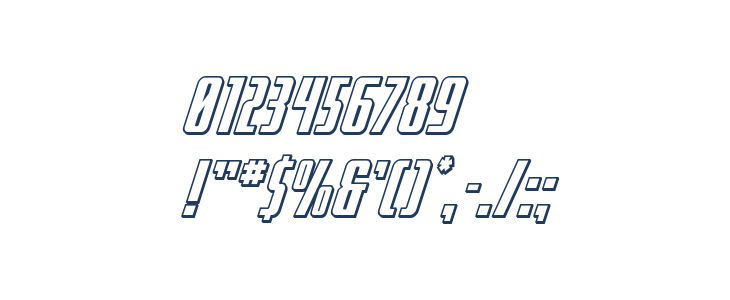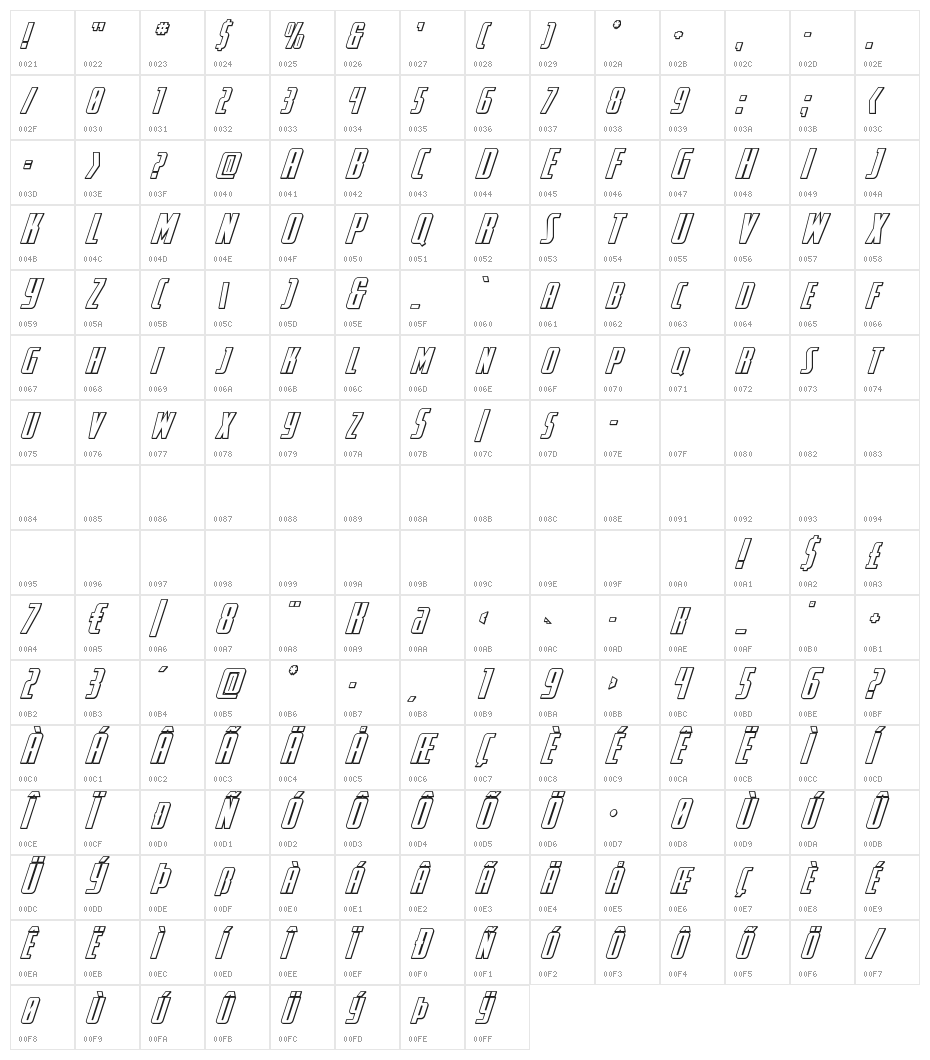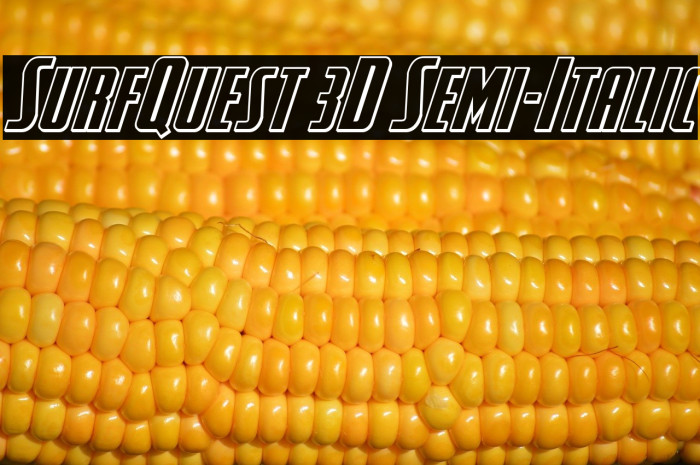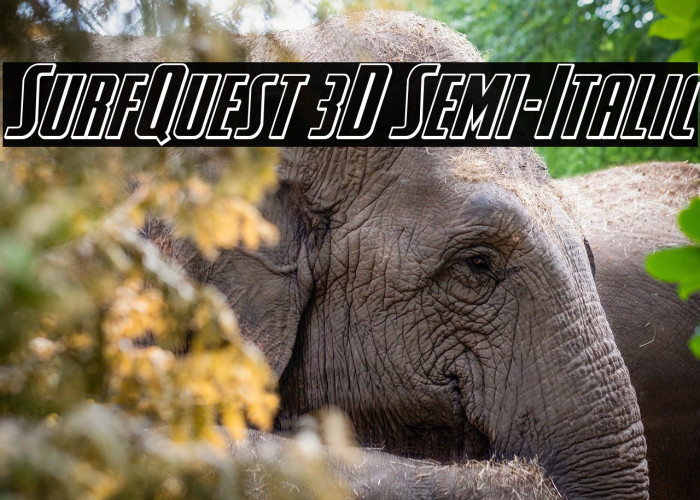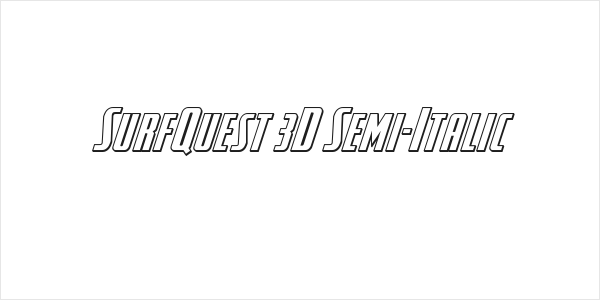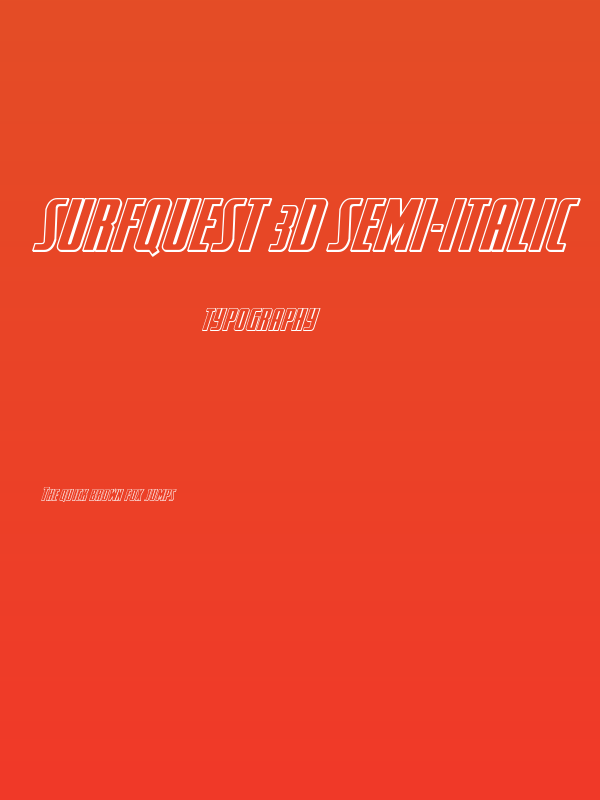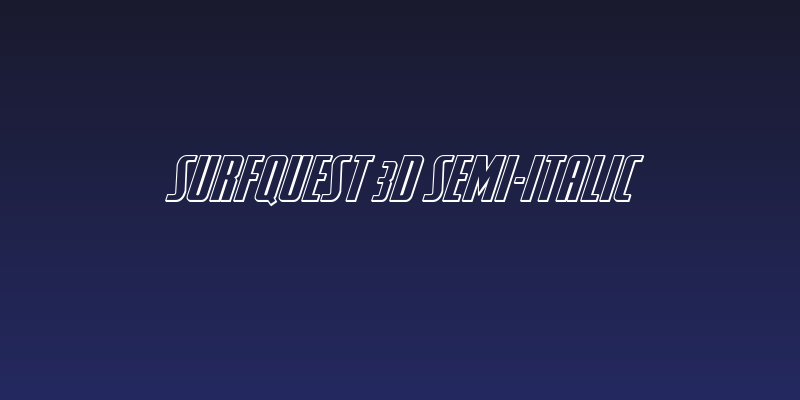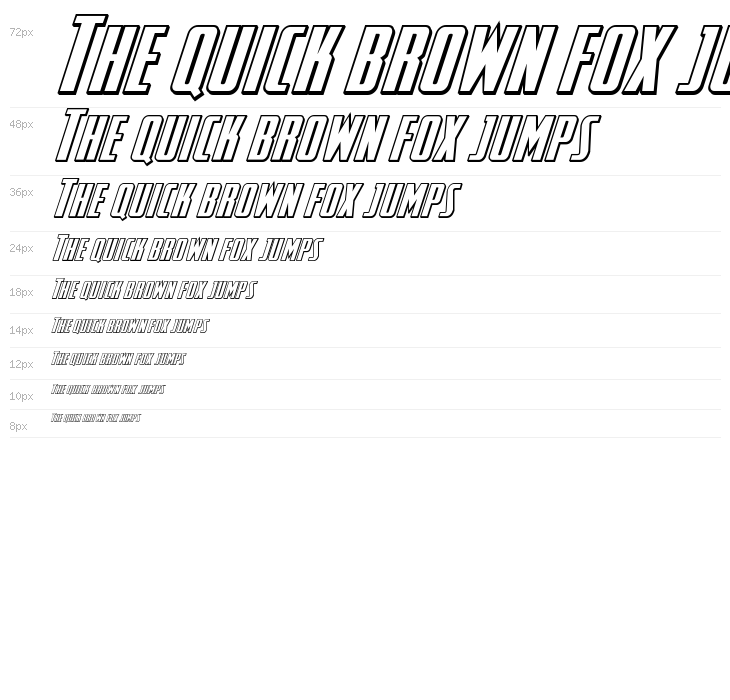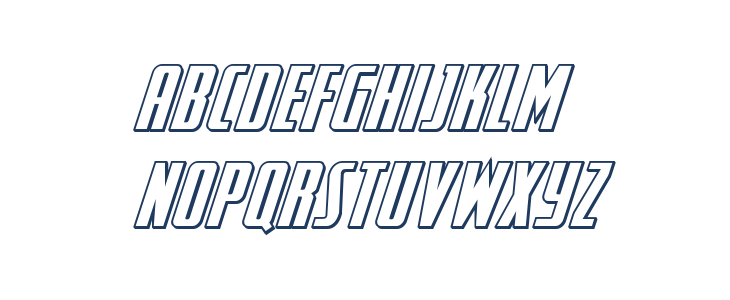
SurfQuest 3D Semi-Italic Font
SurfQuest 3D Semi-Italic Description
This font features a bold, dynamic style with a three-dimensional effect that gives it a sense of depth and movement. The semi-italic slant adds a touch of elegance and speed, making it ideal for designs that require a modern and energetic feel. The uppercase letters are prominent and commanding, while the numbers and special characters maintain the same boldness and style. The font's outline design enhances its visual impact, making it suitable for eye-catching headlines and logos.
| Proposed Projects | Ideal for sports branding, dynamic posters, video game titles, and any project requiring a bold and energetic typeface. |